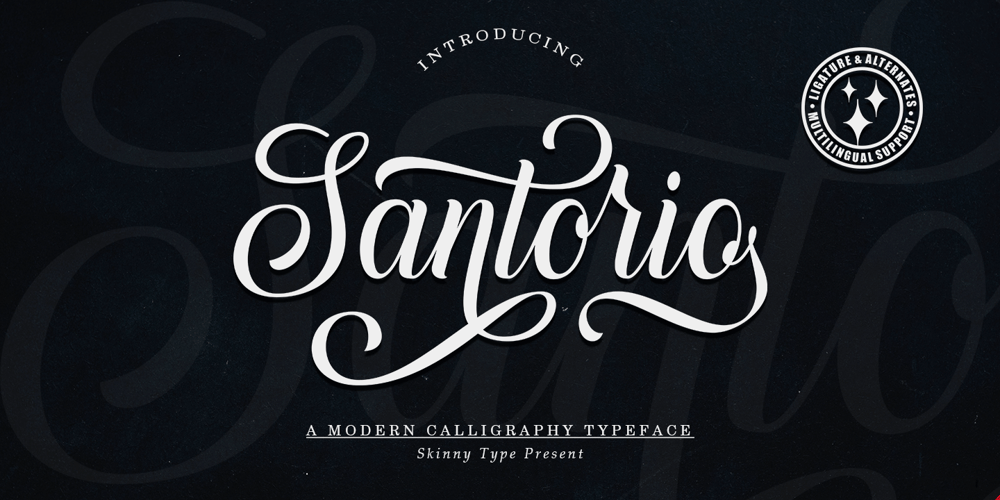
Santorio Font Family was designed by Muhajir and published by Skinny Type. Santorio contains 1 styles and family package options. Please welcome our newest script typeface, Santorio Script, a beautiful script typeface with unique alternatives and strokes. This font is very suitable to be applied especially to logos, and various other formal forms such as invitations, labels, logos, magazines, books, greeting / wedding cards, packaging, fashion, make up, stationery, novels, labels or other types of fonts. advertising purposes. Feature : uppercase & lowercasenumbers and punctuationmultilingualligaturealternativePUA encoded We highly recommend using a program that supports the OpenType feature and the Glyphs panel like many Adobe and Corel Draw applications, so that you can view and access all variations of Glyphs. Email us to skinnyart871@gmail.com if you need anything! Happy Designing! Thank you